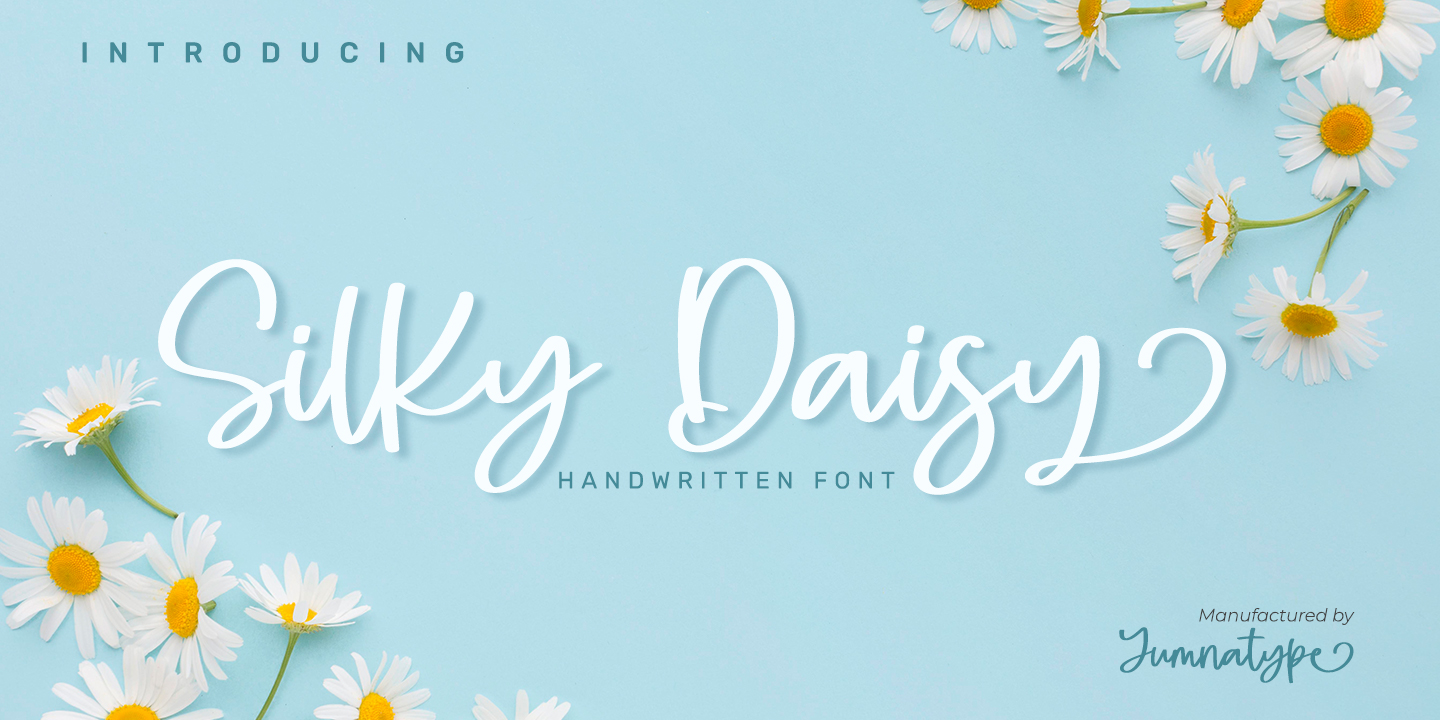
Silky Daisy Font Free Download is a graceful and elegant script typeface that captures the beauty of handwritten calligraphy with a soft, floral touch. Its flowing curves and silky strokes make it perfect for wedding invitations, romantic branding, greeting cards, feminine logos, and stylish packaging.
Whether you're designing a dreamy logo, elegant social media content, or beautiful stationery, Silky Daisy Font Free Download delivers sophistication and charm with every letter. Its gentle, handcrafted aesthetic adds a personal and heartfelt vibe to both digital and print projects.